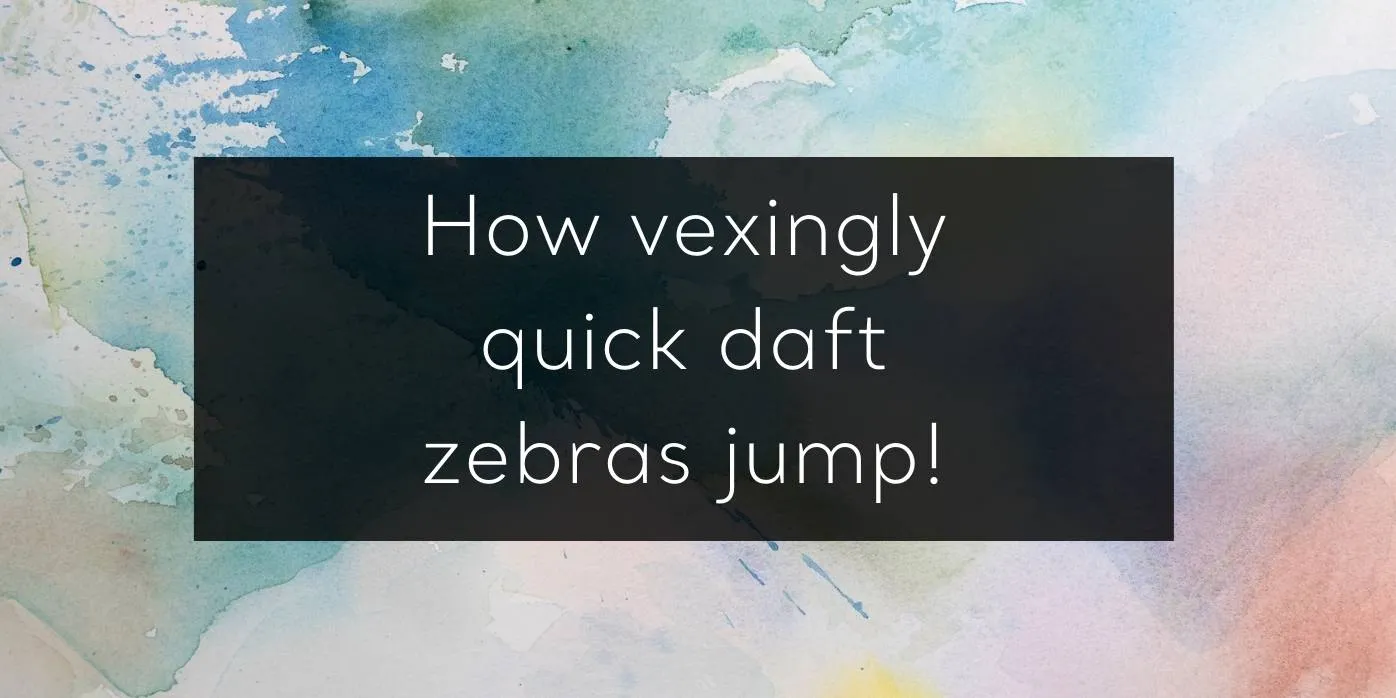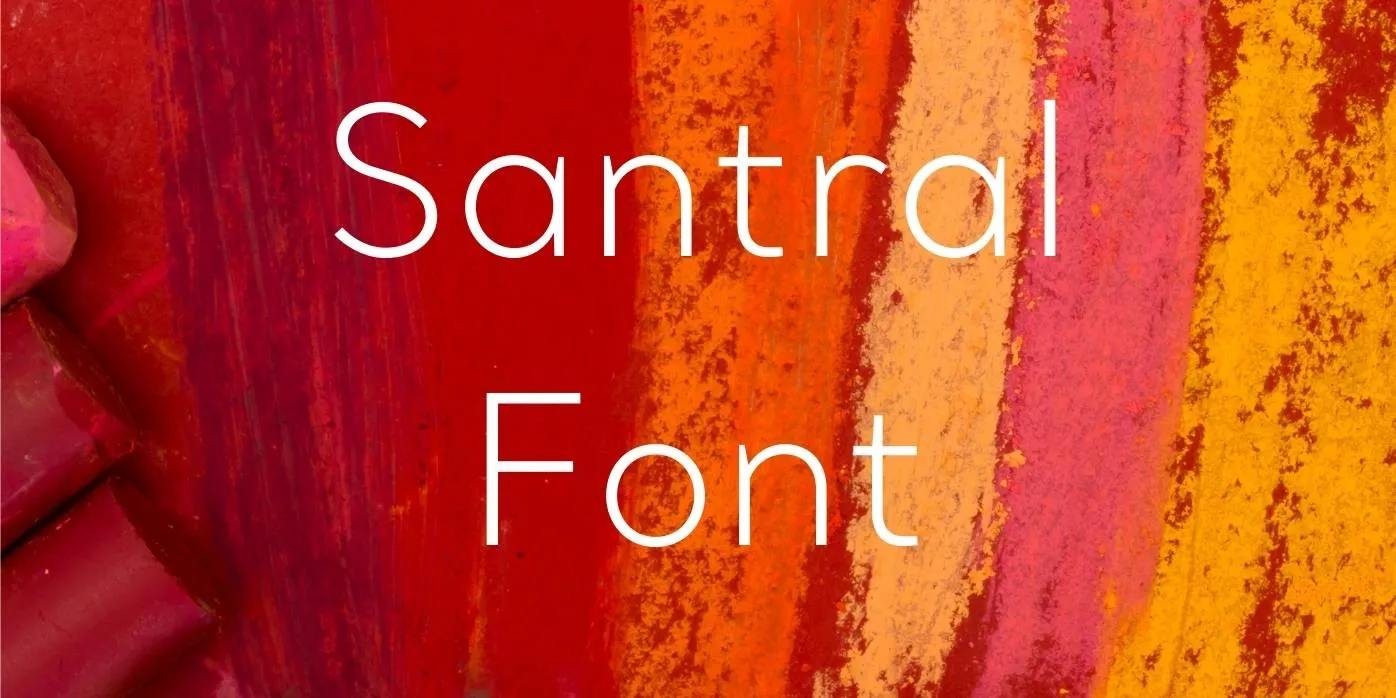
Santral Font
Santral Font is a sans-serif typeface created by Turkish designer Taner Ardali. The name Santral means “central” in Turkish, and the font was designed to be used as a central element in branding and design projects. This font family includes four weights Regular, Bold, italic, and Bold Italic, and is available in both TTF and OTF formats. This Font is a versatile typeface that can be used for both body copy and headlines.
A Turkish graphic designer who has worked on branding and identity projects for clients. He has also designed typefaces for both personal and commercial use. It is not from Google fonts. It’s similar to Unica One Font is best for different designs.